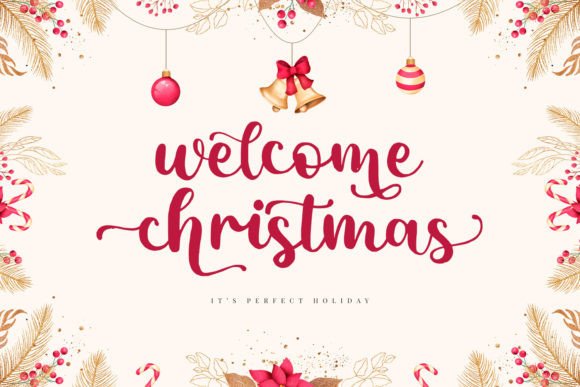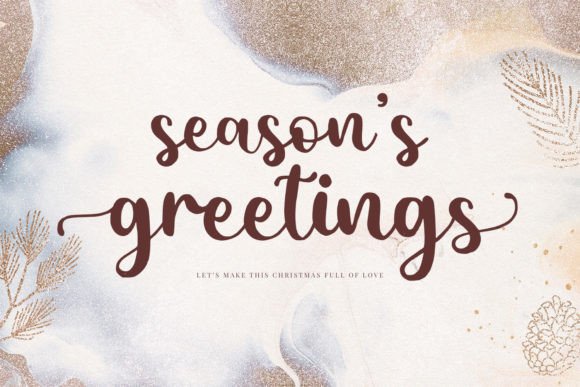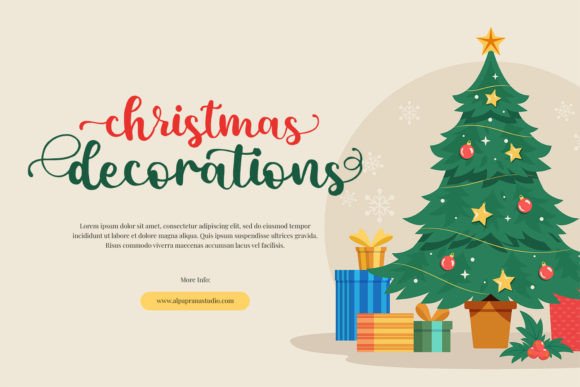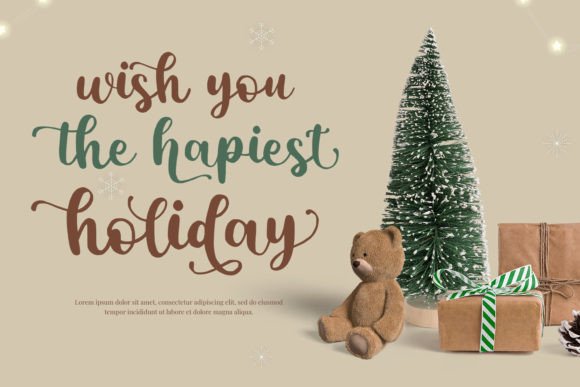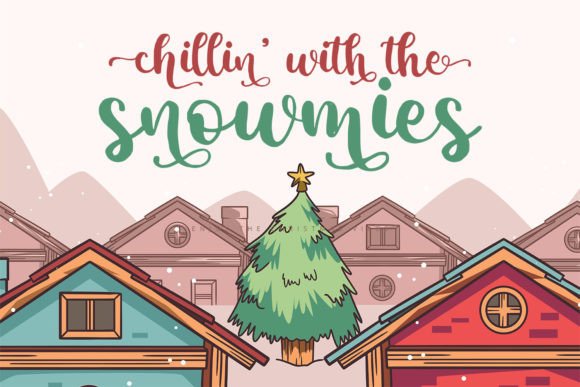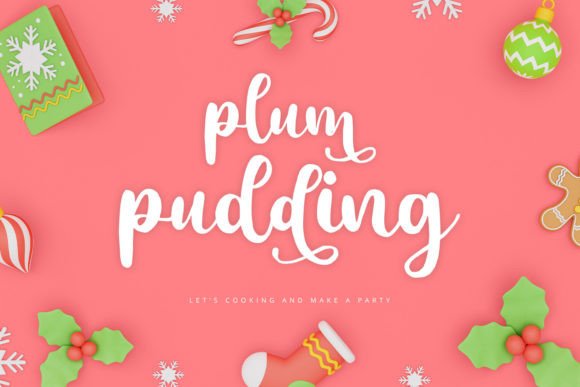
The Magic of the Season: Introducing the Father Christmas Font
As the festive season approaches, I find myself surrounded by twinkling lights, cozy sweaters, and the unmistakable jingle of holiday tunes. It’s a time when creativity knows no bounds, and the world is full of possibilities. And what better way to capture the essence of this magical time of year than with the perfect font?
Enter the Father Christmas Font, a modern script font that embodies the spirit of the season with its unique and playful style. Designed for maximum versatility, this font is perfect for branding, logo design, lettering, and so much more. Whether you’re designing for a special event, creating a festive advertisement, or simply want to add a touch of whimsy to your holiday cards, the Father Christmas Font is sure to bring joy and cheer to your designs.
As a designer, you know the importance of finding the right font to bring your vision to life. The Father Christmas Font is a valuable addition to any designer’s toolkit, offering a one-of-a-kind look that’s sure to stand out in a crowded market. So why not give it a try and see the magic it can bring to your next design project?
Father Christmas Font Key Features
- Font Family: Father Christmas Font, a unique and festive typeface designed specifically for Christmas and holiday themes.
- Unique Characteristics: Features a distinctive, handwritten style with bold lines, rounded edges, and festive flourishes, perfect for adding a touch of holiday cheer to designs.
- Font Style and Weights: Includes multiple font styles, including Regular, Bold, Italic, and Bold Italic, allowing for a range of design options and flexibility.
- Language Support: Supports multiple languages, including English, Spanish, French, German, Italian, and many others, making it a versatile choice for global holiday campaigns.
Designer Review: Father Christmas Font
At first glance, the Father Christmas Font may seem like a charming and festive choice for holiday projects. ✨ I appreciate the unique and playful design that captures the spirit of the season. The font’s curly and whimsical lines add a touch of magic to any text it’s used with. ✨ The font also works well in bold, making it perfect for headings and titles.
However, there are a few limitations to consider. ⚠️ One of the main issues is the font’s readability at smaller sizes. The intricate details and excessive ornamentation can make the text difficult to decipher, especially when used in body text. ⚠️ Additionally, the font’s style may not be suitable for all types of projects, such as formal invitations or serious publications.
Overall, I think the Father Christmas Font is a great choice for projects that require a playful and festive atmosphere. While it may not be suitable for all projects, it’s perfect for holiday cards, social media graphics, and other seasonal designs.
- Unique and playful design
- Works well in bold
- Perfect for holiday projects
- Not suitable for formal or serious projects
- Readability issues at smaller sizes
Use the “Father Christmas Font” to add a festive touch to your holiday-themed designs, such as Christmas cards, gift tags, and invitations.
Experiment with different font sizes and colors to create a playful and eye-catching effect.
Combine the “Father Christmas Font” with other festive graphics and elements, such as holly, snowflakes, and candy canes, to create a cohesive and festive design.